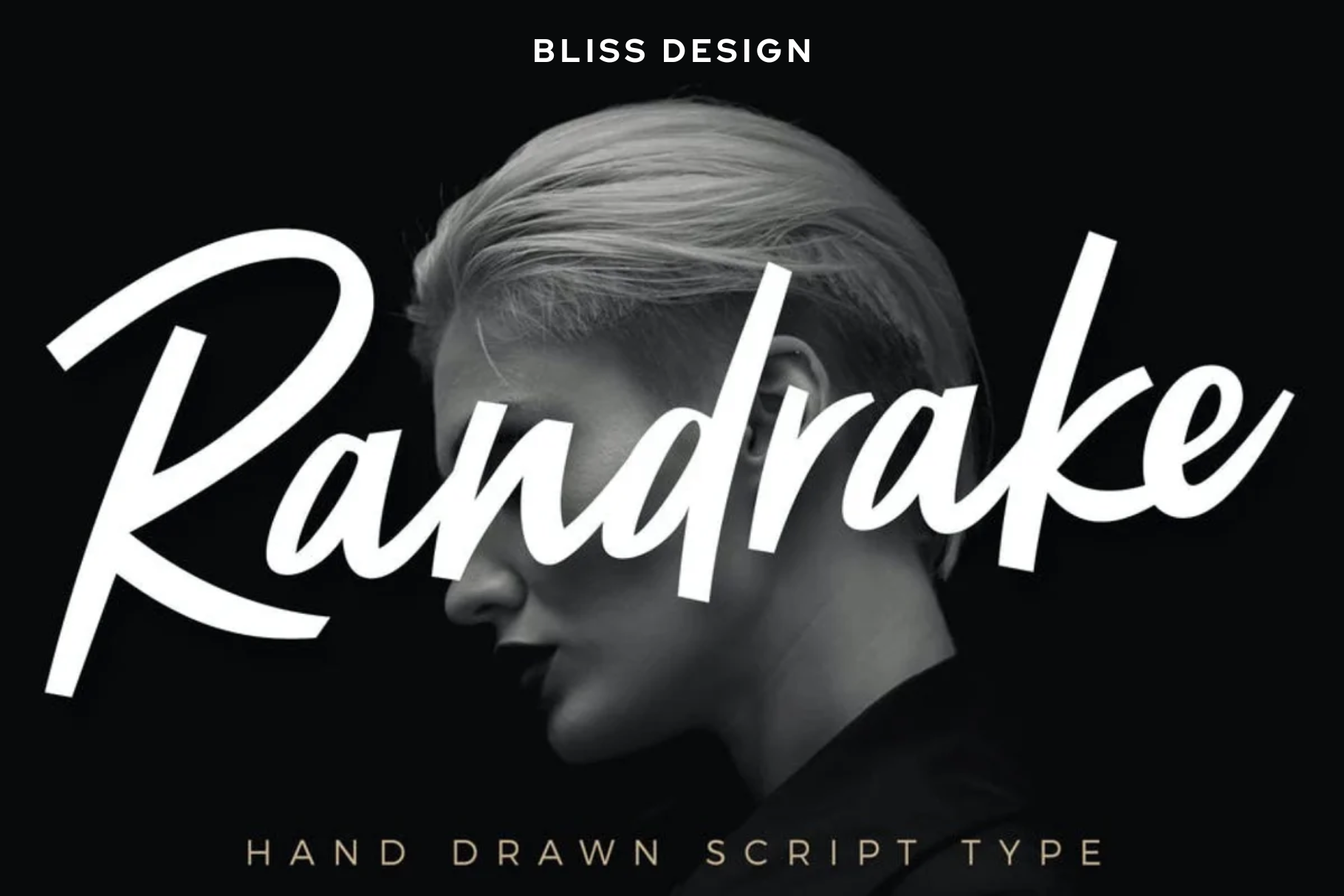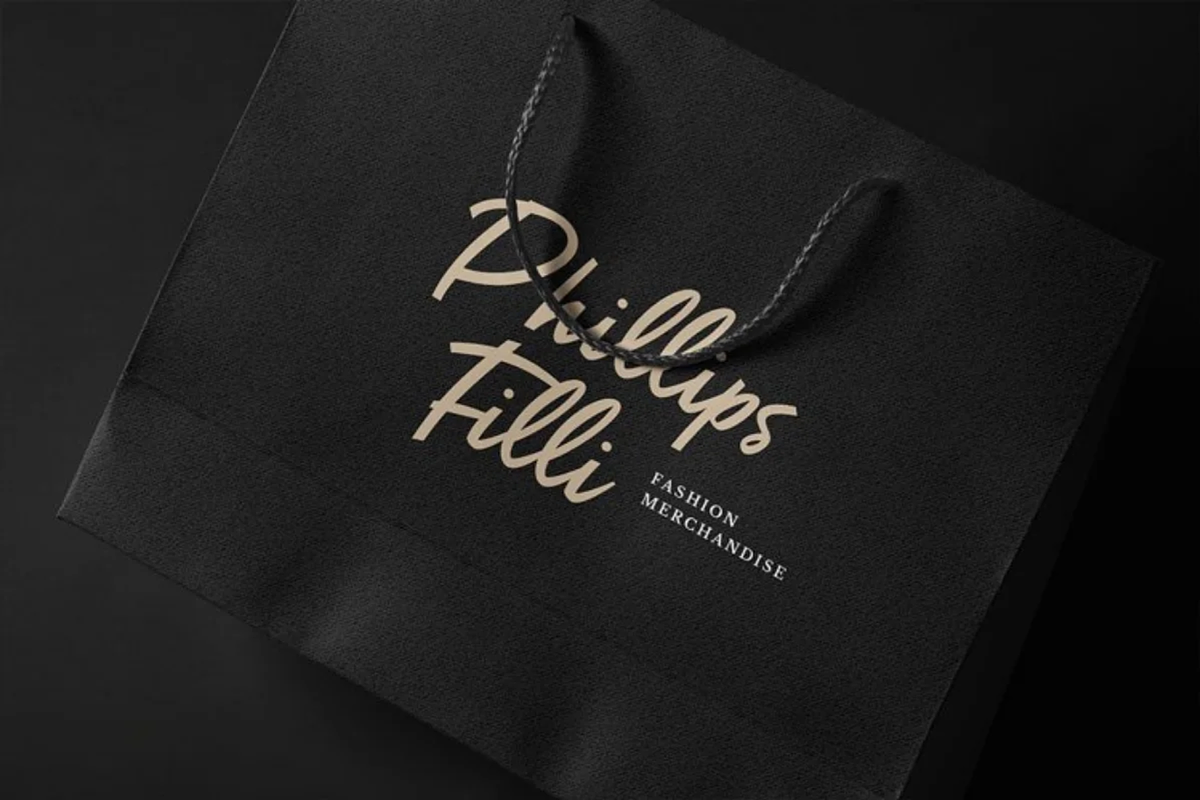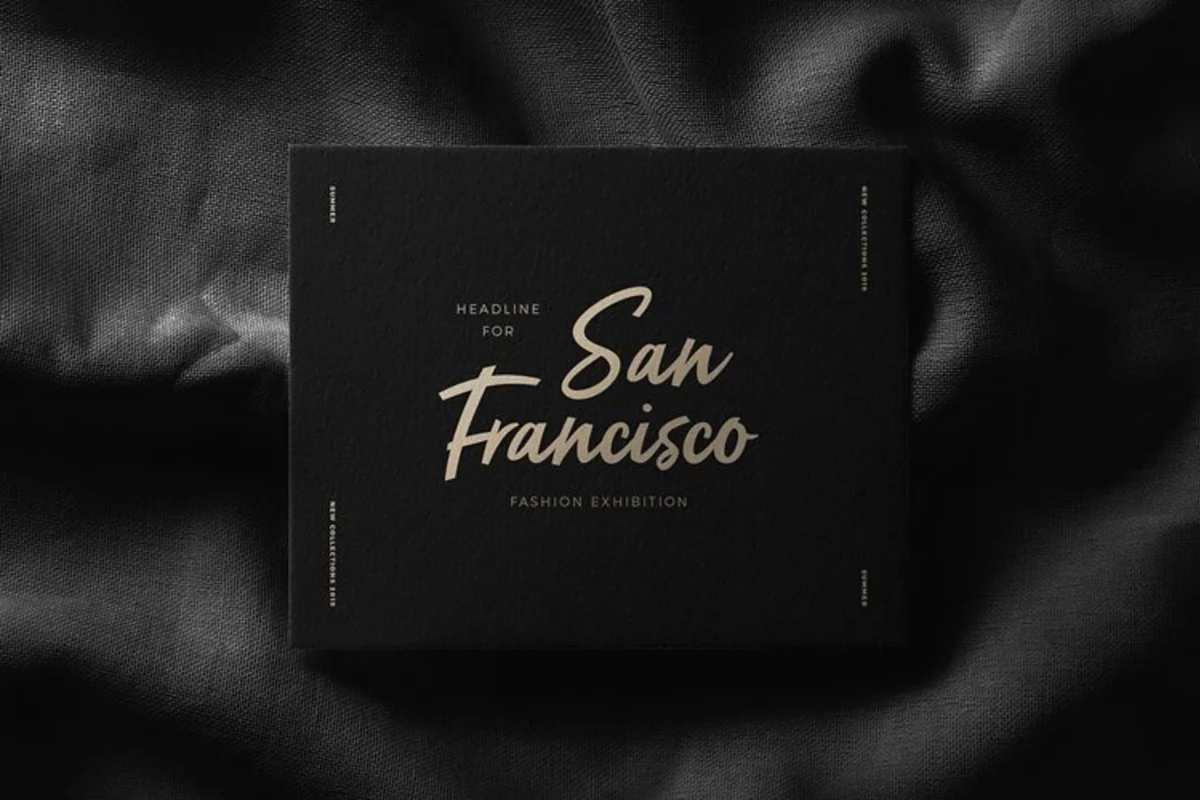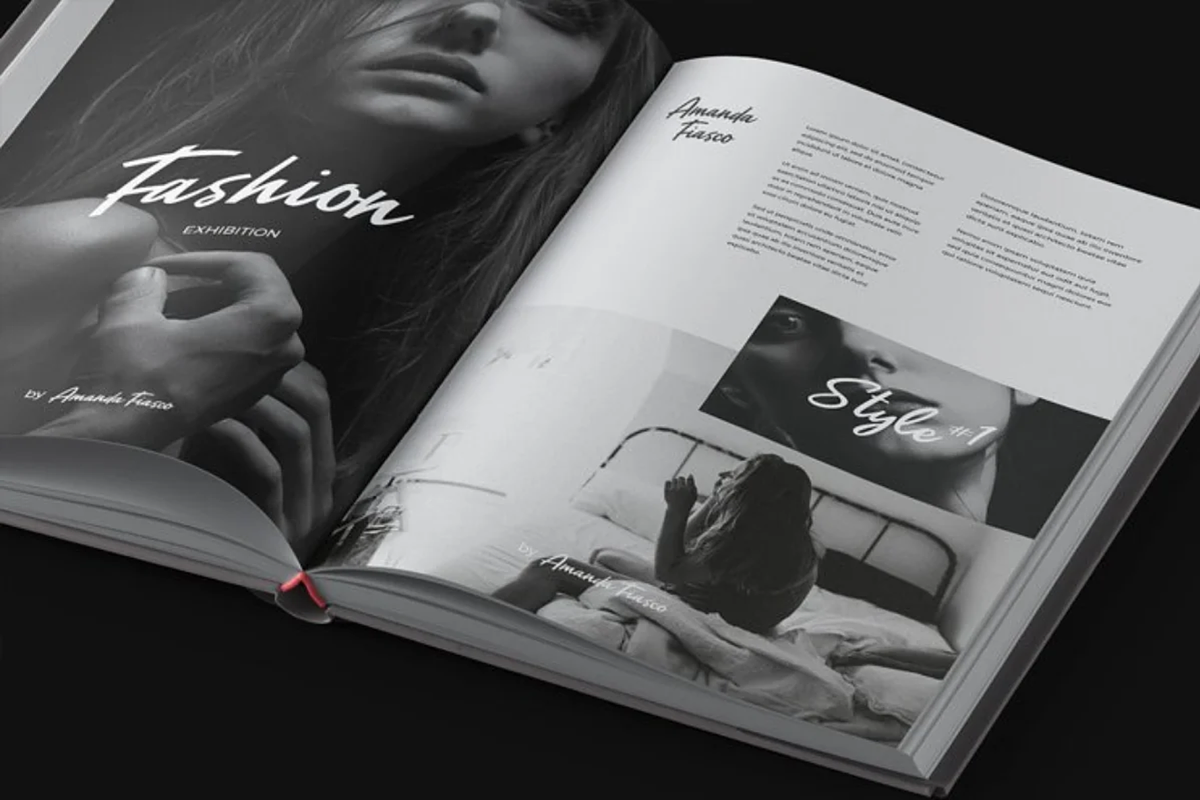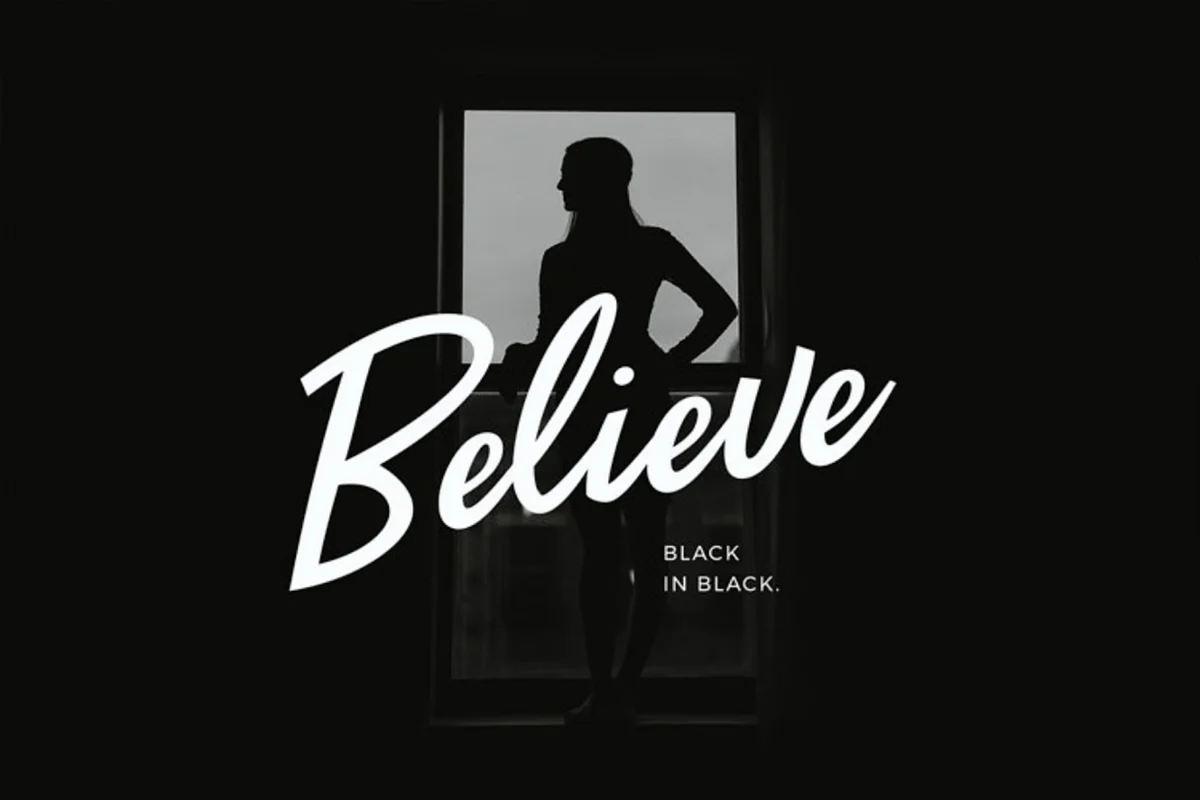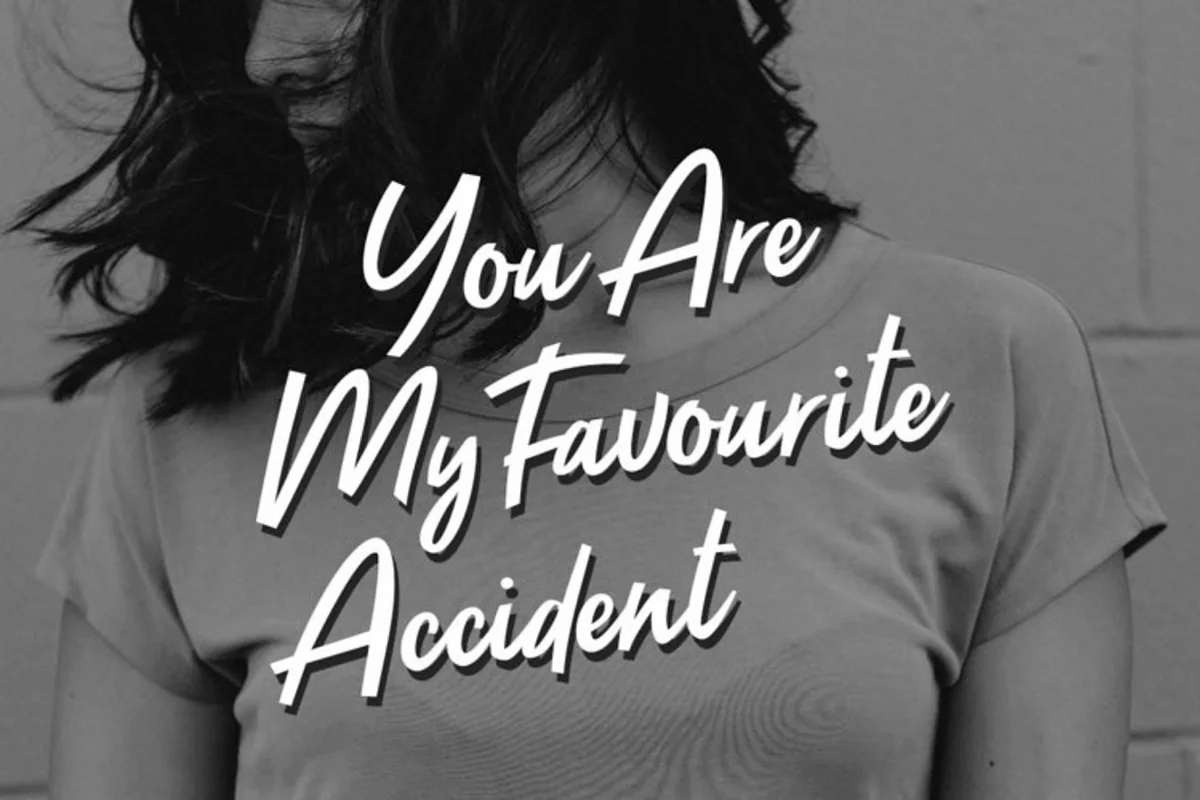
Randrake - Font Script
We Provide You one of the best Stylish Hand Written Script. Best match for logos, header, Titles, Prints & other Creative process possibilities.
Create a Extraordinary Typography / lettering results by using Randrake Handmade Font Script